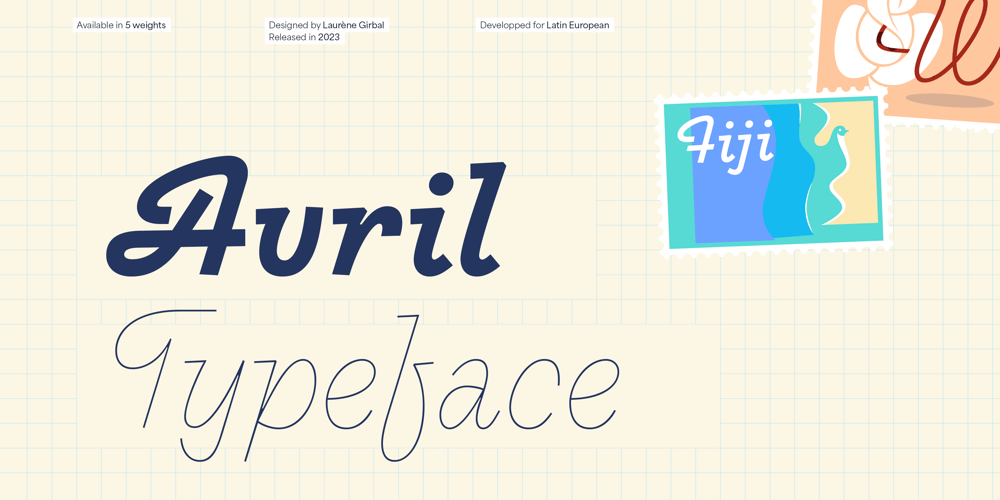
Avril VF Font Family was designed by Laurène Girbal and published by Blaze Type. Avril VF contains 1 styles and family package options. Avril font is a chill but lively script typeface loosely inspired by a french sign painting advertising books from the fifties “La lettre dans la peinture et la publicité” from Jean Joveneaux. The font features expressive semi-connecting characters, stressed moments low contrast that mimic a dynamic handwriting. Its loopy curves that seem traced out an unbroken line make Avril font a chill, playful and distinctive script typeface. Originally developed in one weight, the font has grown into five styles from thin to bold. It was initially thought for display applications, but the chilled lighter styles perform well for longer paragraphs whereas bolder weights will be ideal for headlines. And lastly, the name of this typeface was chosen as a tribute to spring and its refreshing vibes. Avril font is inviting you to a chill Saturday afternoon, ideally during an exciting travel. Welcome aboard!